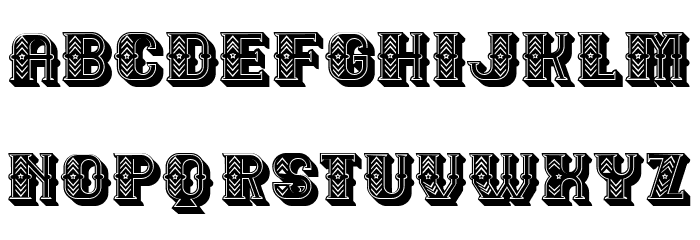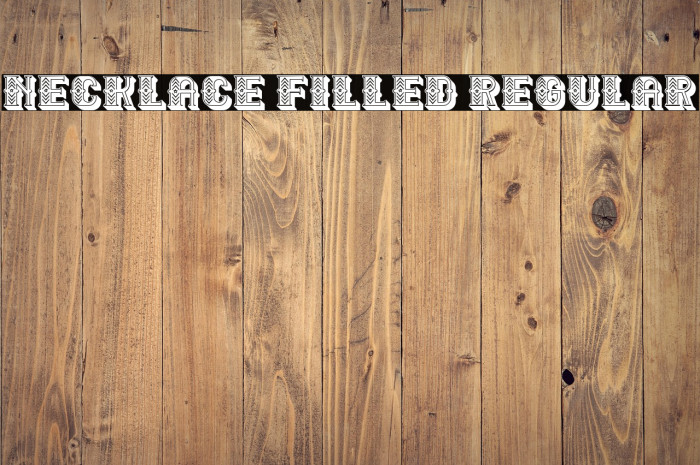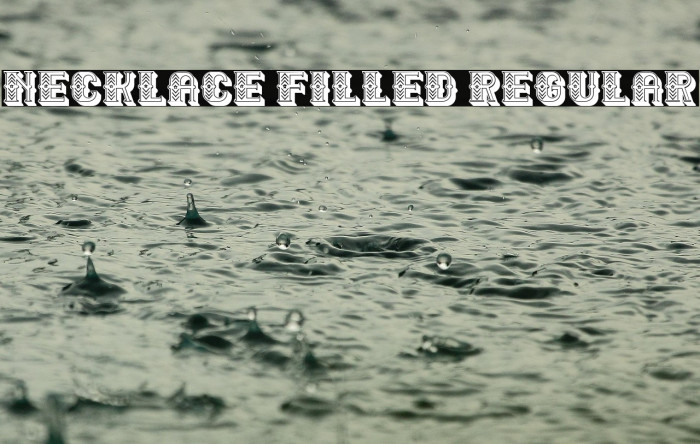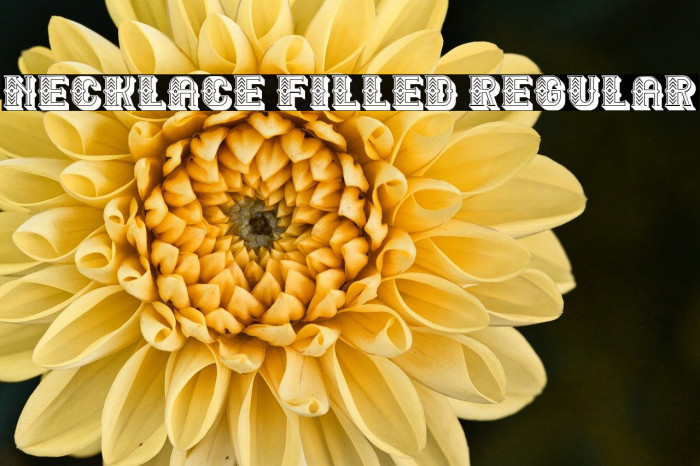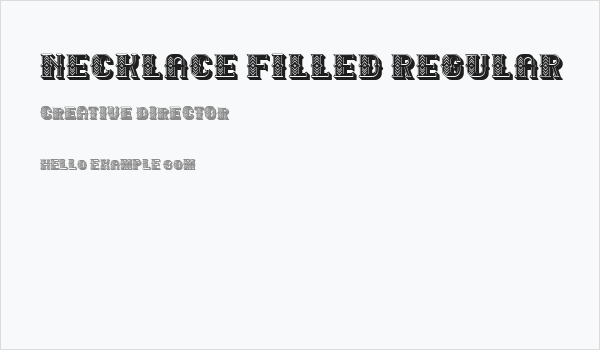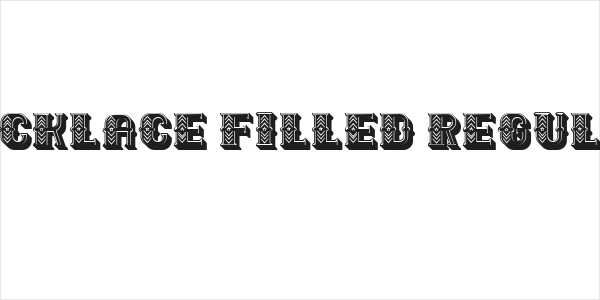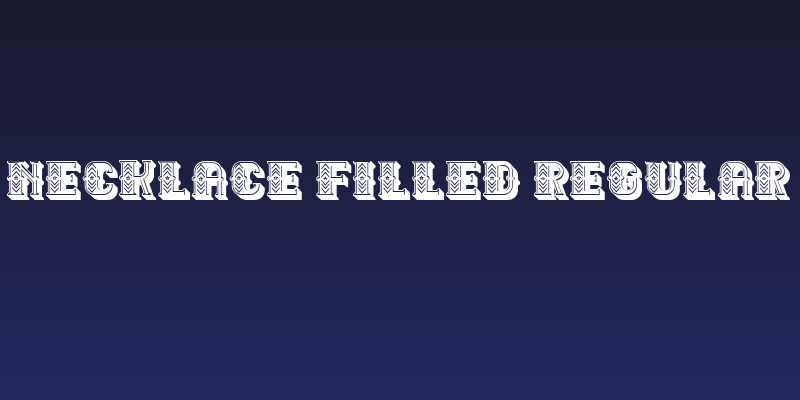
Necklace Filled Regular Font
Necklace Filled Regular Description
This font features a bold and decorative style with intricate patterns filling each character. The uppercase letters are designed with a strong presence, showcasing detailed ornamental elements that resemble jewelry or intricate carvings. The characters have a three-dimensional effect, with shadows adding depth and a sense of luxury. The overall appearance is both striking and elegant, making it suitable for projects that require a touch of sophistication and flair. The font's unique design elements make it stand out, ideal for creating eye-catching headlines or artistic displays.
| Proposed Projects | Ideal for luxury branding, artistic posters, event invitations, and decorative signage. |